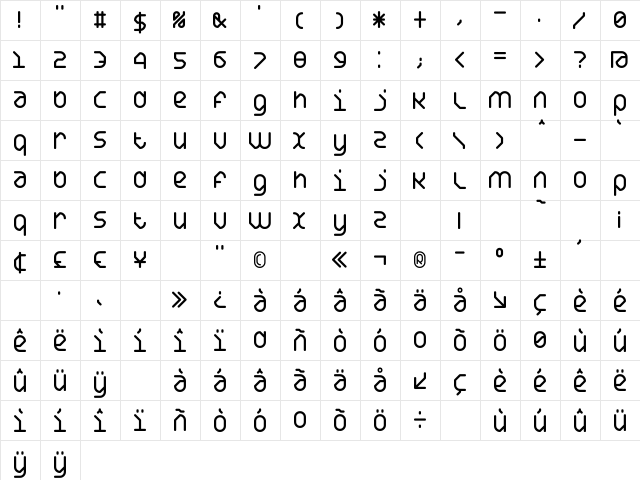
DS Yakuti55R Regular Font Preview
DS Yakuti55R Regular
Design Context for DS Yakuti55R Typeface
DS Yakuti55R takes a measured approach to typography — its balanced proportions and neutral character make it a reliable workhorse for both digital and print work.